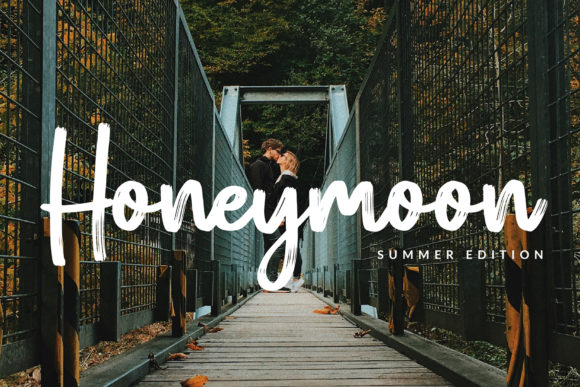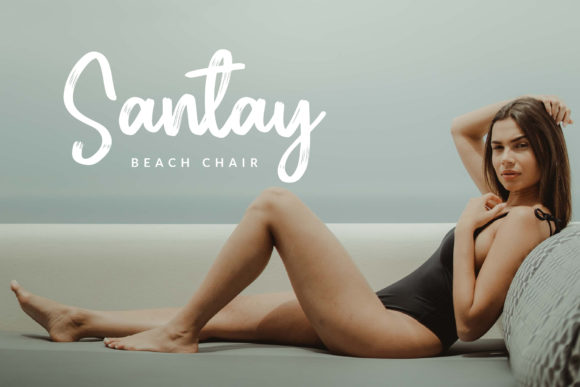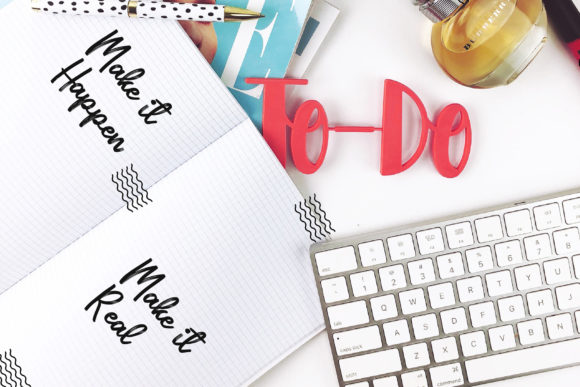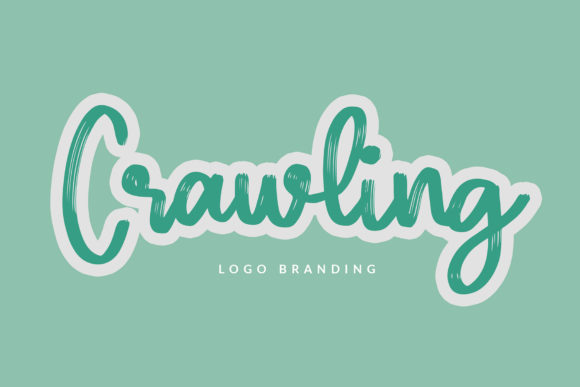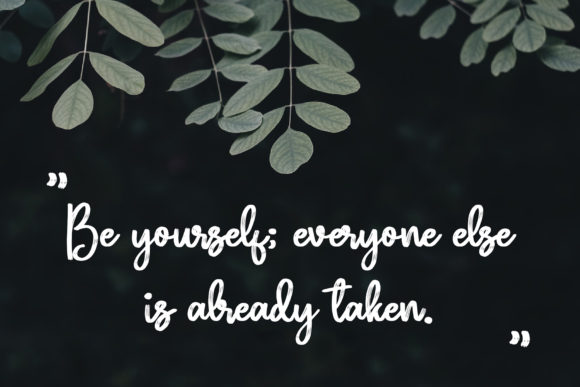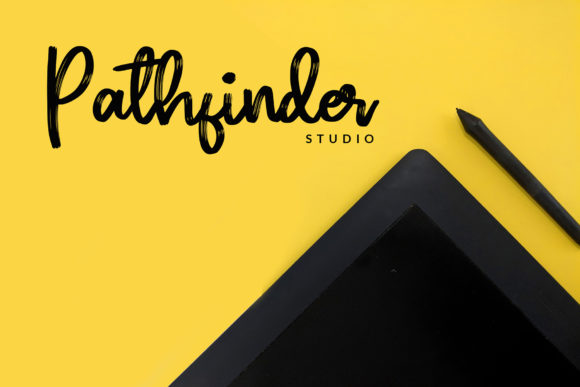
Introduction to Purbaya Font
Have you ever been working on a design project, and the perfect font just seems out of reach? That’s exactly what happened to me when I stumbled upon the Purbaya Font – a high-quality, free download that instantly elevated my design game.
As a designer, I know how valuable it is to have a reliable design resource like the Purbaya Font. With its clean and quirky aesthetic, it’s the perfect fit for logos, branding, social media, and crafty DIY projects. Plus, its transparent background makes it a breeze to use on any design project. Whether you’re a seasoned pro or just starting out, the Purbaya Font is a game-changer for your next creative project.
Purbaya Font
- High-quality design resource with a unique, creative style perfect for various projects.
- Comes with a transparent background, making it easy to use in any creative project.
- Features a bold, modern design with a range of characters, including uppercase and lowercase letters, numbers, and symbols.
- Perfect for use in logos, branding, packaging, and other creative projects where a unique font is required.
Honest Review: Purbaya Font
As a designer, I’m always on the lookout for high-quality fonts that can elevate my creative projects. I recently came across the Purbaya Font, and I was excited to give it a try. Here’s my honest review.
- Unique and stylish design: The Purbaya Font has a distinct and eye-catching design that sets it apart from other fonts.
- Transparent background: The transparent background allows for easy integration with other design elements.
- Limited character set: The Purbaya Font has a limited character set, which may not be suitable for complex projects.
- No bold or italic variations: The font doesn’t come with bold or italic variations, which can be a limitation for designers who need to create emphasis.
Overall, I think the Purbaya Font is a great addition to any designer’s toolbox. While it has its limitations, its unique design and free download make it a valuable resource for creative projects. I’d definitely recommend it to designers who are looking for a stylish and easy-to-use font.
Tips for Getting the Most Out of Purbaya Font
For the best results, use Purbaya Font in conjunction with other high-quality design elements. Experiment with different font sizes, colors, and styles to create a unique look. You can also use the font with a transparent background to add a touch of sophistication to your design.
Purbaya Font is suitable for a wide range of creative projects, including graphic design, web design, and digital marketing. It’s also perfect for presentations, documents, and social media graphics. The font’s high quality design and versatility make it a valuable resource for designers and non-designers alike.
Alternatives to Purbaya Font
Open Sans is a high-quality sans-serif font that offers a clean and modern design. It’s a versatile font that’s perfect for various design projects, including creative websites, apps, and presentations. With a transparent background, Open Sans can be easily used as a background font or in combination with other fonts.
Compared to Purbaya Font, Open Sans has a more modern and sleek design, making it ideal for contemporary design projects. It’s also available for free download, making it a great alternative for designers looking for a high-quality font without breaking the bank.
Lato is a beautiful sans-serif font that’s perfect for creative projects, including logos, branding, and advertising. It’s a high-quality font that offers a unique and elegant design, making it stand out from other fonts. With a transparent background, Lato can be easily used as a background font or in combination with other fonts.